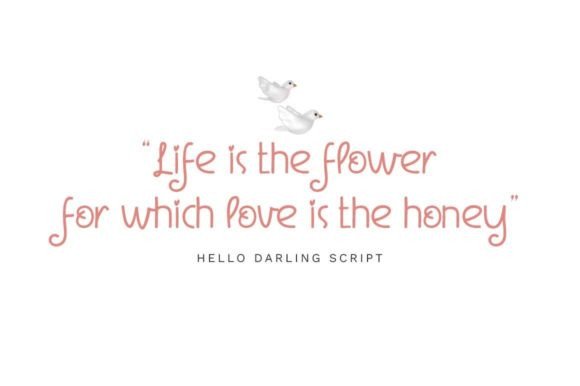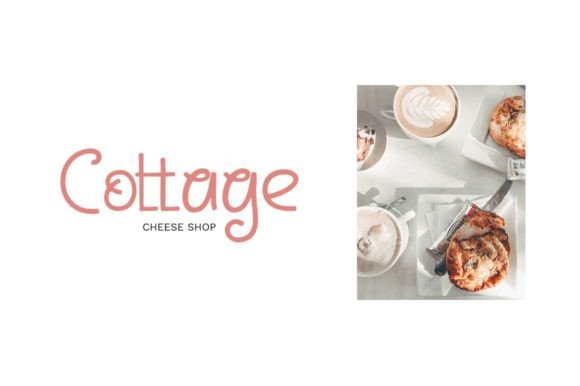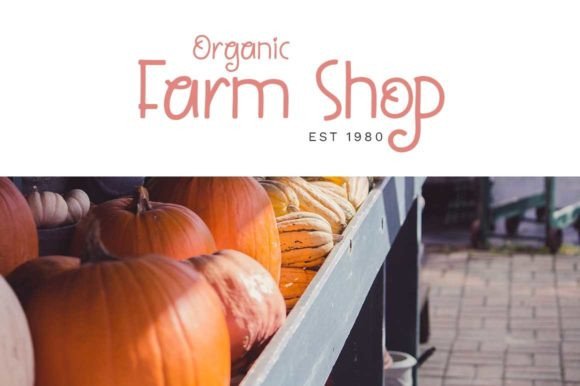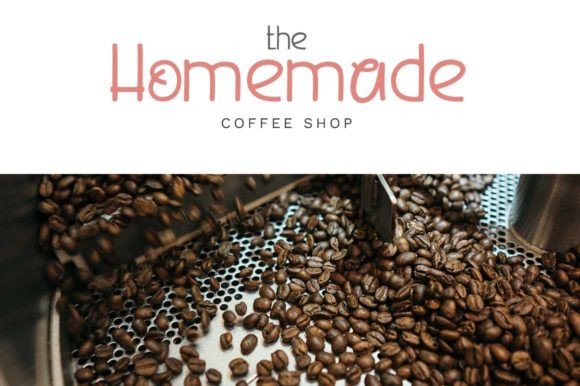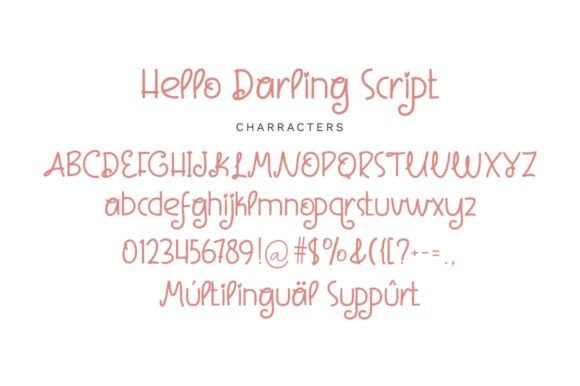
Introduction to Hello Darling Font
Hello Darling is a sweet and casual handwritten font.
Whether you’re using it for crafts, digital design, presentations, or making greeting cards, this font has the potential to become your favorite go-to font, no matter the occasion .
Key Features of Hello Darling Font
Why Choose Hello Darling Font?
Hello Darling Font offers exceptional quality and versatility, making it a valuable addition to your design toolkit. Whether you’re creating for personal projects or commercial use, Hello Darling Font delivers professional results.